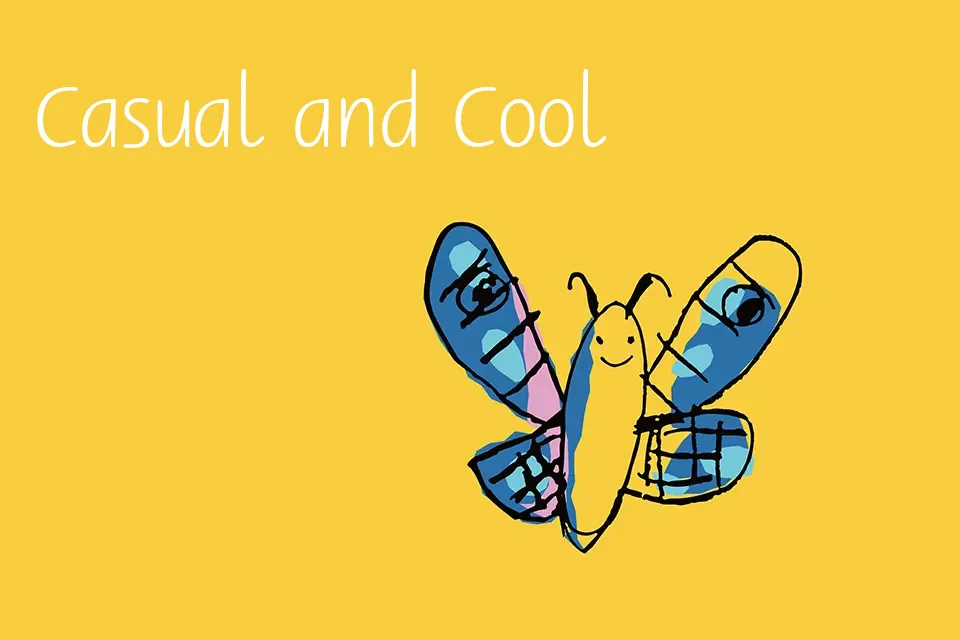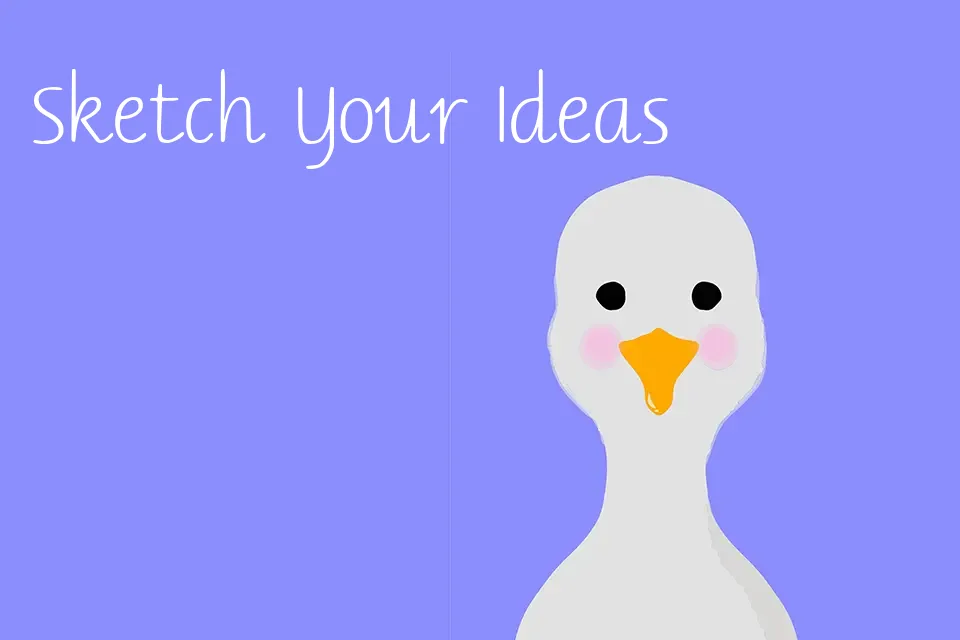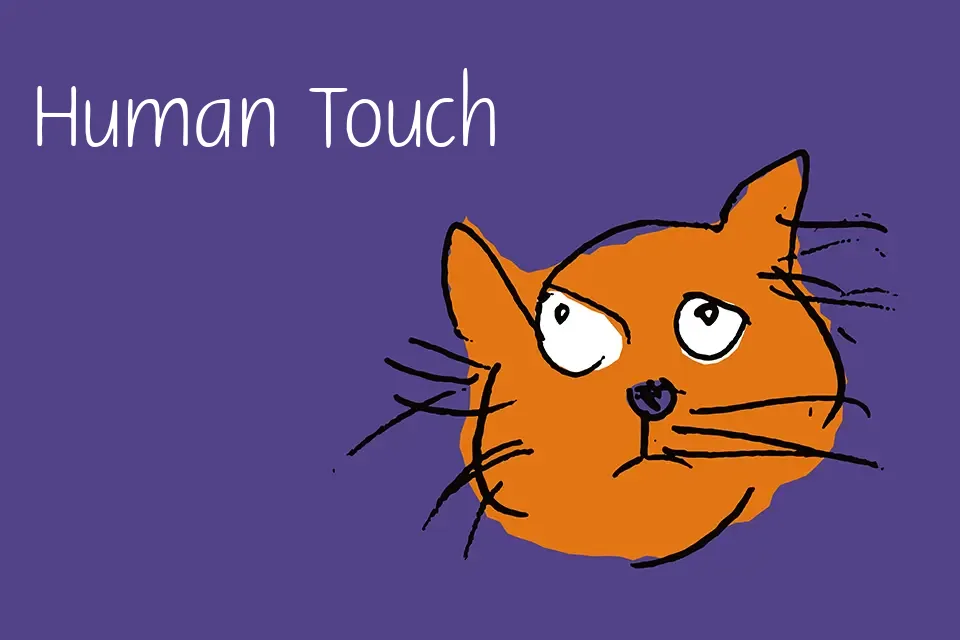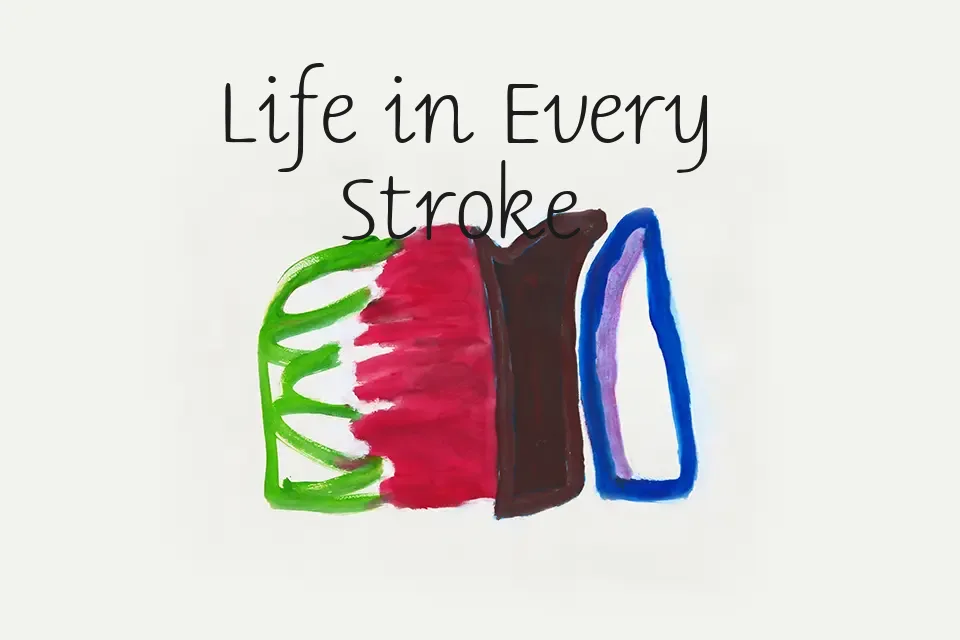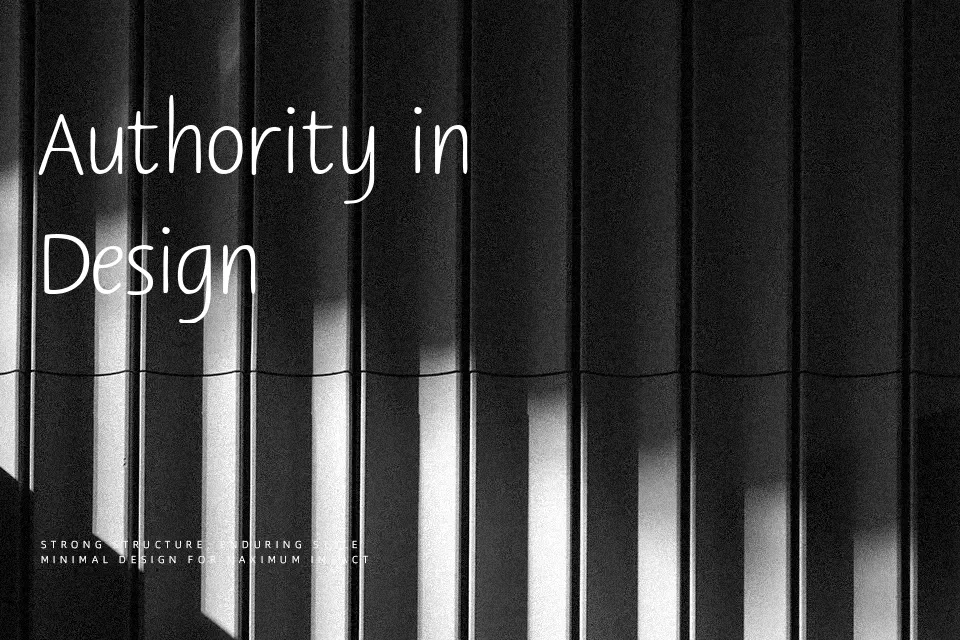
Berner Basisschrift Font
Berner Basisschrift carries the deliberate, unhurried rhythm of a child learning to write — strokes are open, letterforms are upright, and spacing is generous enough to feel welcoming rather than formal. Released by Peter Wiegel in 2014, the font draws from the Berner Basisschrift pedagogical handwriting model used in Swiss schools, where simplicity and readability in early literacy take priority over stylistic flair. It comes in two variants, with the second style offering slightly more refined glyph construction. That said, the handwriting-school aesthetic is domain-specific: outside educational or child-friendly contexts, it can feel out of place — particularly in branding, UI, or any setting that expects a polished typographic presence. If you want a clean handwritten font without the schoolroom association, this isn’t it.
– Children’s worksheets and early literacy print materials
– School-themed poster headers
– Educational app onboarding screens targeting young learners
– Informal labels for kids’ products or classroom displays
– Corporate reports or professional branding
– Long-form body text (readability breaks down at small sizes)
– UI design requiring optical balance and neutral tone
– Luxury or fashion-adjacent contexts
Perfect for editorial, kids, and poster, with a clean and handwritten style.